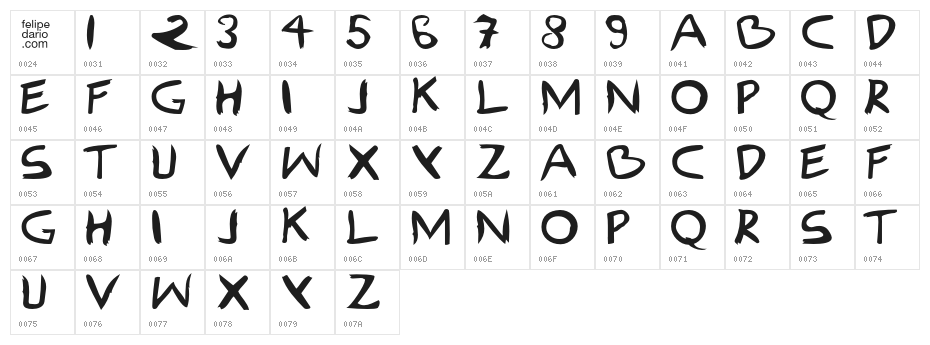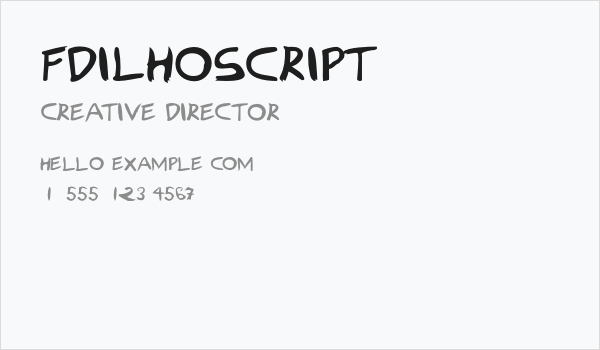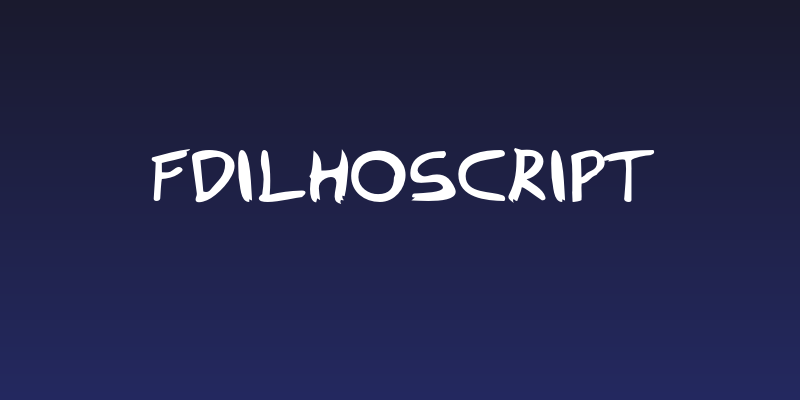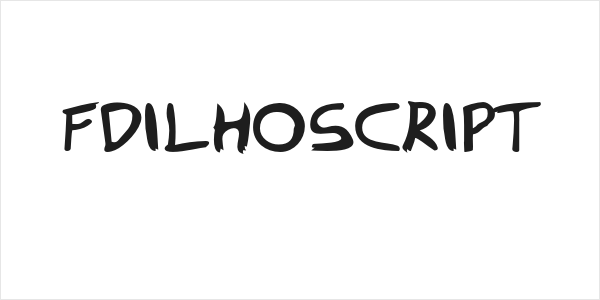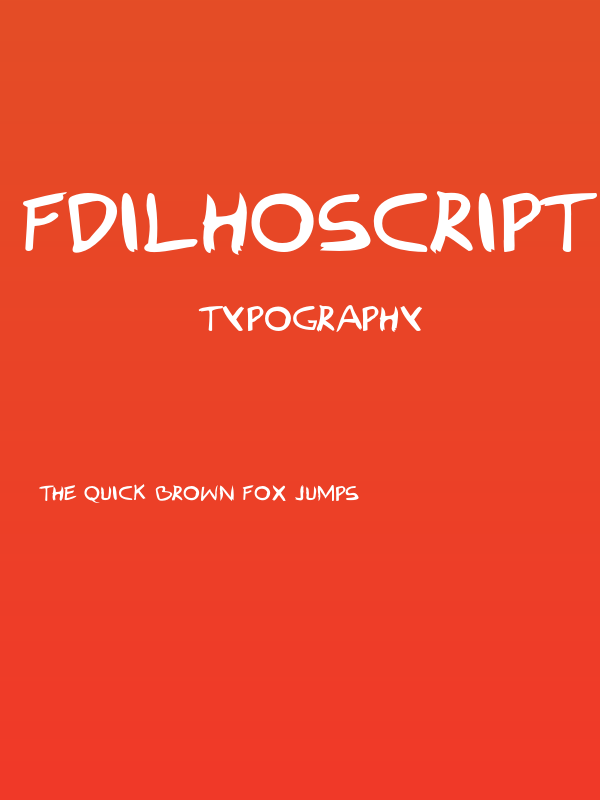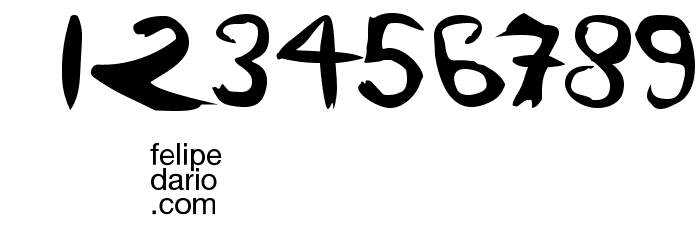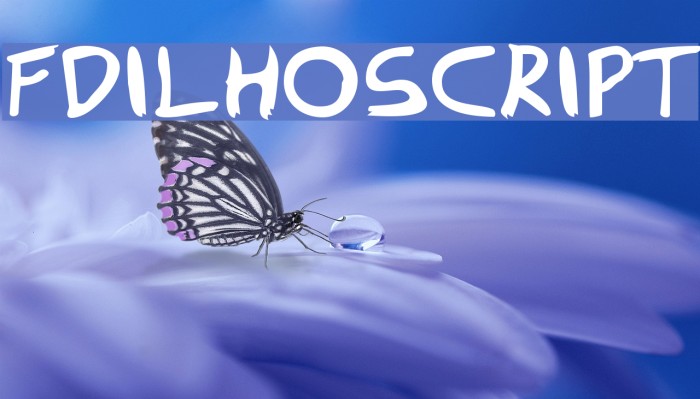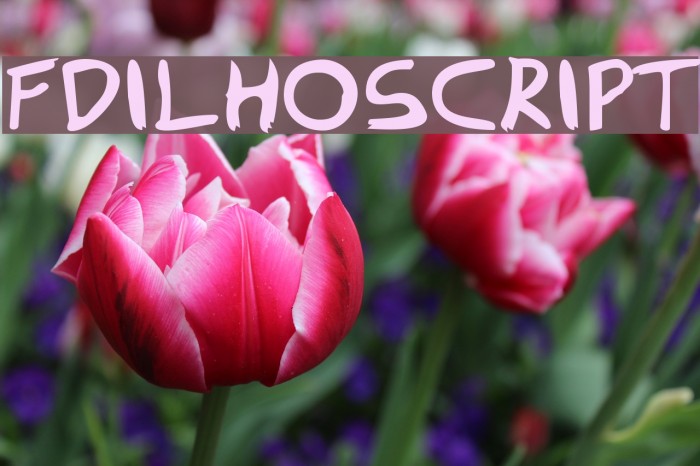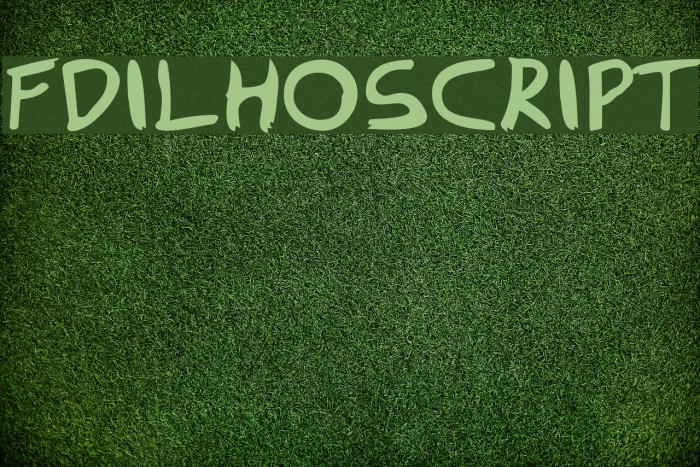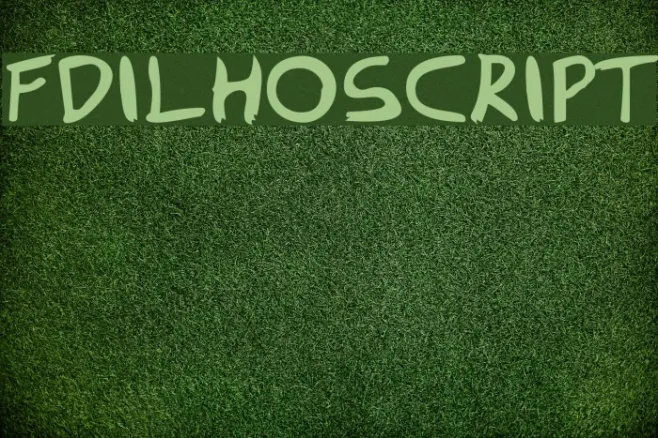
FDIlhoscript Font
FDIlhoscript Description
This font features a dynamic and energetic style, characterized by its brush-like strokes and fluid forms. The letters have a hand-drawn appearance, with varying thicknesses that add a sense of movement and spontaneity. The uppercase and lowercase letters maintain a consistent style, with rounded edges and a slightly italicized slant, enhancing its casual and artistic feel. The numerals are bold and expressive, matching the overall aesthetic. This font is ideal for projects that require a personal touch or a creative flair.
| Proposed Projects | Ideal for artistic projects, branding, posters, and invitations that require a creative and personal touch. |